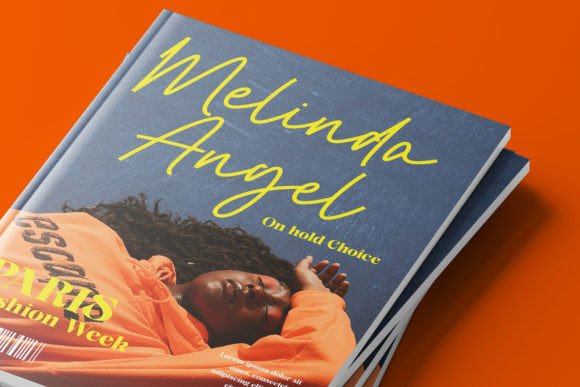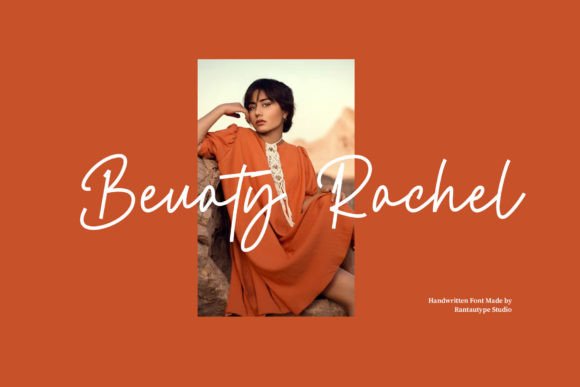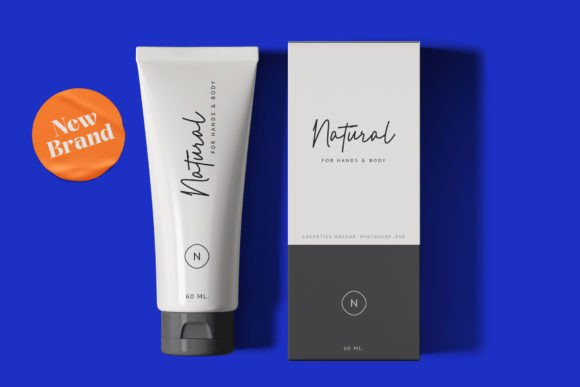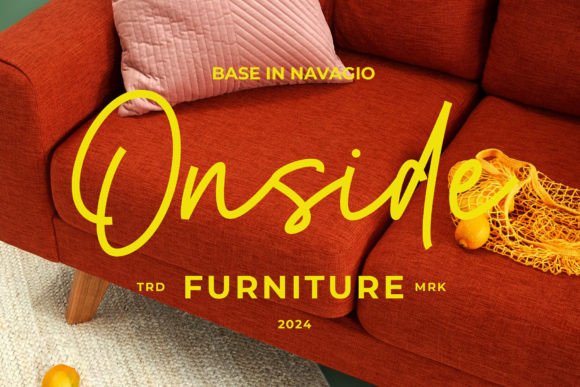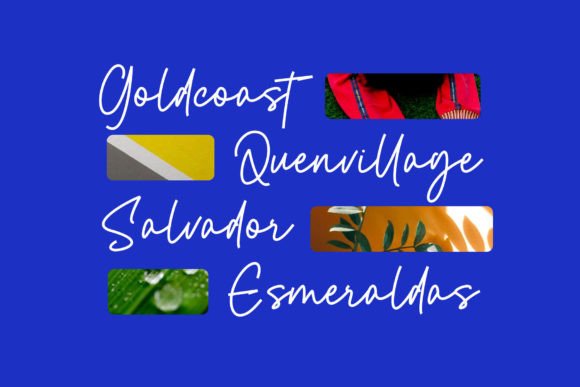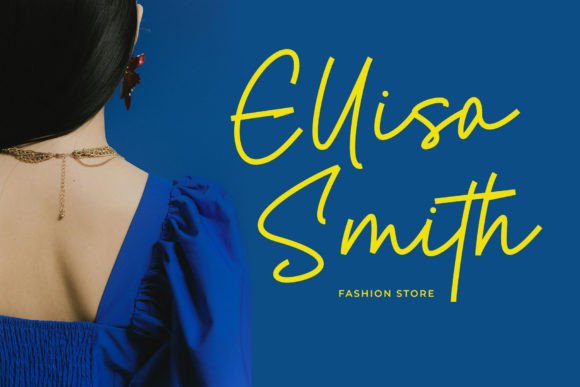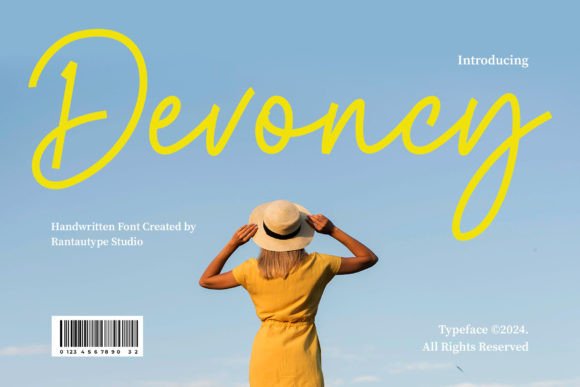
Introducing Devoncy Font: The Perfect Choice for Creative and Retro Designs
In the world of typography, fonts play a crucial role in conveying the tone and aesthetic of a design. For designers and crafters looking for a unique and stylish font to add a retro touch to their projects, Devoncy Font is an excellent choice. This handwritten font boasts a stiff and strong tip, making it perfect for a wide range of creative endeavors.
What Makes Devoncy Font Stand Out?
Devoncy Font is a carefully crafted handwritten font that exudes a sense of elegance and sophistication. Its stiff and strong tip gives it a distinctive look that sets it apart from other fonts. The font’s unique characteristics make it an ideal choice for designers who want to add a touch of retro charm to their designs.
Perfect for Creative and Lifestyle Designs
Devoncy Font is a versatile font that can be used for a variety of design projects, including:
- Logos: Create a lasting impression with a custom logo that incorporates Devoncy Font.
- Advertisements: Add a touch of retro charm to your ads and make them stand out.
- Watermark on photography: Give your photos a professional touch with a subtle watermark featuring Devoncy Font.
- Stationery: Elevate your stationery designs with a elegant and sophisticated font.
- Branding project: Use Devoncy Font to create a consistent brand identity across all your marketing materials.
- Display and magazine: Add a touch of glamour to your magazine and display designs.
- Invitation: Create beautiful and unique invitations for special occasions.
- Corporate brand: Use Devoncy Font to create a professional and cohesive brand image.
- Product design: Add a retro touch to your product designs and make them stand out.
- Label: Create eye-catching labels that showcase your brand’s personality.
- Business project: Use Devoncy Font to add a touch of elegance and sophistication to your business projects.
Why Choose Devoncy Font?
There are many reasons why designers and crafters should choose Devoncy Font for their projects:
- Unique and stylish: Devoncy Font has a distinctive look that sets it apart from other fonts.
- Retro touch: Add a touch of nostalgia to your designs with Devoncy Font’s retro charm.
- Versatile: Use Devoncy Font for a wide range of design projects, from logos to product designs.
- Elegant and sophisticated: Devoncy Font exudes a sense of elegance and sophistication, making it perfect for high-end designs.
Tips for Using Devoncy Font
Here are some tips for getting the most out of Devoncy Font:
- Use it sparingly: Devoncy Font is a statement font, so use it sparingly to make a lasting impression.
- Experiment with colors: Try pairing Devoncy Font with different colors to create a unique look.
- Mix and match: Combine Devoncy Font with other fonts to create a visually interesting design.
In conclusion, Devoncy Font is a versatile and stylish font that is perfect for designers and crafters looking to add a retro touch to their projects. Its unique characteristics, elegance, and sophistication make it an ideal choice for a wide range of design projects. Whether you’re creating a logo, advertisement, or product design, Devoncy Font is sure to make a lasting impression.